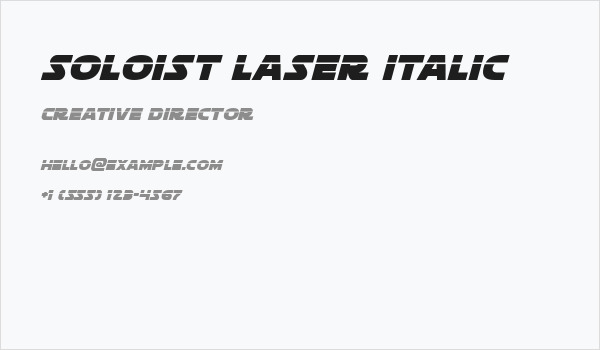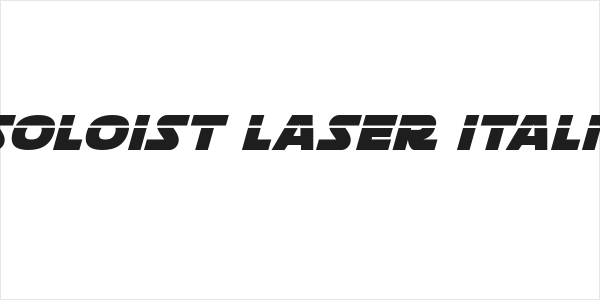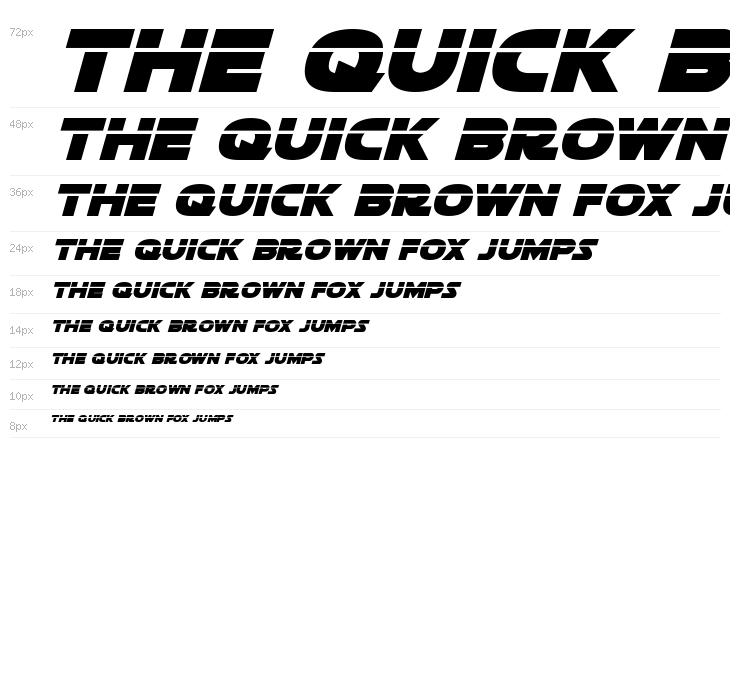
Soloist Laser Italic Font
Soloist Laser Italic Description
This font features a bold, italicized style with a futuristic and dynamic appearance. The characters are slanted forward, giving a sense of motion and speed. The strokes are thick and consistent, providing a strong visual impact. The design incorporates sharp angles and clean lines, enhancing its modern and sleek look. The uppercase and lowercase letters maintain a uniform style, while the numerals and special characters complement the overall aesthetic. This font is ideal for projects that require a bold and energetic feel.